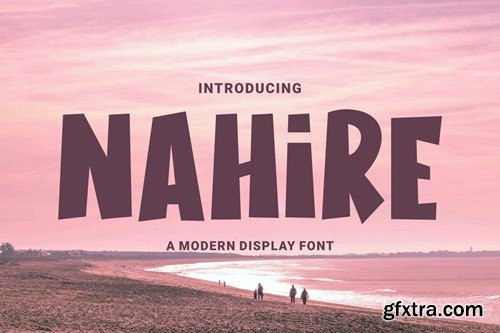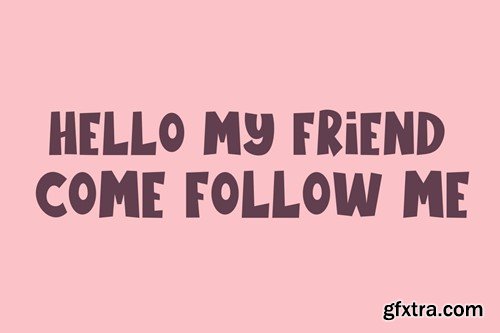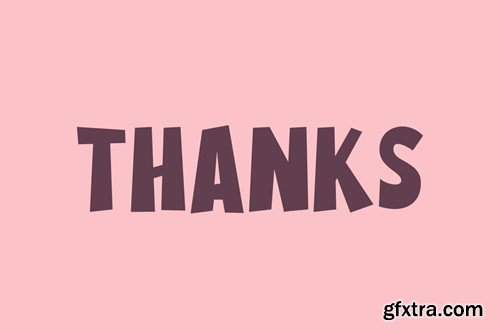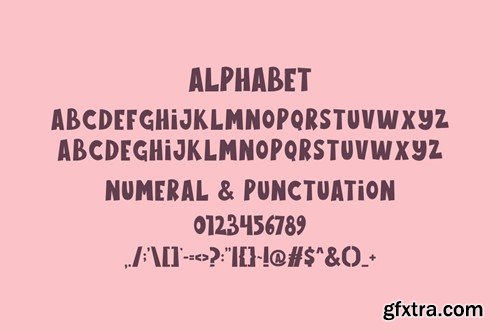
Nahire Modern Display Font
Introducing Nahire Modern Sans Serif. Nahire is a modern and simple font, best used as a display for headings, logos, branding, magazines, product packaging and invitations. Nahire come with clean lines and smooth curves give any project an extra touch of class. What you get: Thank you.